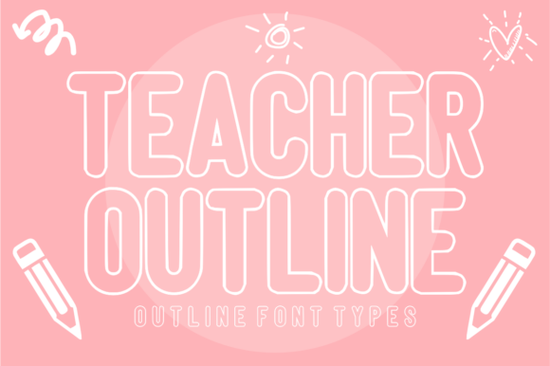
If you're creating classroom handouts, teacher-themed crafts, or print-on-demand apparel, you know how much the right font can impact your design. The Teacher Outline Font offers a clean, hollow structure that’s both modern and functional ideal for projects where clarity and style matter equally. Whether you’re designing coloring sheets for students or custom mugs for Teacher Appreciation Week, this minimalist display font gives your work a professional yet approachable look.
Why choose an outline font for educational or craft projects?
Outline fonts like Teacher Outline stand out because they’re versatile by design. Their hollow letterforms leave room for creativity you can fill them with color, add patterns inside, or layer them over textured backgrounds without losing legibility. For teachers making worksheets or bulletin boards, that means more engaging visuals without extra effort. For crafters using Cricut or Silhouette machines, the open structure cuts cleanly and works well with vinyl, heat transfer, or sublimation.
Unlike dense or overly decorative fonts, Teacher Outline keeps things simple. It’s bold enough to read from a distance (great for classroom signage) but light enough in visual weight to avoid overwhelming your layout. If you’ve tried other display fonts like Grunge Bold X for a rugged look or Comic Thick for a playful vibe, you’ll appreciate how Teacher Outline offers a quieter, more refined alternative while still holding its own on posters, tote bags, or planner inserts.
What kinds of projects work best with Teacher Outline?
This font shines in any setting where you want text to be seen but not shout. Here are a few real-world uses:
- Coloring pages and activity sheets: Kids can color inside the letters, turning handwriting practice into art time.
- Teacher appreciation gifts: Personalize mugs, notebooks, or T-shirts with phrases like “World’s Okayest Teacher” in a font that feels intentional, not generic.
- Bulletin board headers: Pair with solid-color cardstock or chalkboard backgrounds for high contrast and easy reading.
- DIY decals and apparel: Works beautifully with iron-on vinyl or sublimation printing thanks to its clear, open shapes.
It also layers well with other fonts. Try combining it with something solid like Thick Juliet for contrast, or keep everything airy by pairing it with another minimalist typeface. If you lean toward retro classroom themes, Block Retro could complement it nicely in a mixed-font layout.
How does it compare to other bold display fonts?
Many bold display fonts prioritize impact over flexibility they’re thick, filled-in, and meant to dominate a design. Teacher Outline takes a different approach: it’s bold in form but empty in the middle, giving you creative control. That makes it especially useful when you’re working with limited color palettes or need to adapt a design across multiple mediums (print, fabric, digital).
For example, if you’re used to the tall, condensed energy of Urban Tall, you might find Teacher Outline refreshingly spacious. It doesn’t crowd your composition, and its even stroke width ensures consistent results whether you’re printing at 12pt or cutting at 6 inches tall.
Tips for getting the most out of Teacher Outline
Because it’s an outline font, spacing and background choice matter more than with solid fonts. Avoid busy patterns behind the text opt for solid colors or subtle gradients so the hollow letters stay readable. If you’re using it in a coloring sheet, increase the line thickness slightly in your design software to prevent breakage during printing.
With its balance of simplicity and function, Teacher Outline is a smart addition to any educator’s or crafter’s toolkit especially when you want your message to be clear, calm, and creatively open-ended.